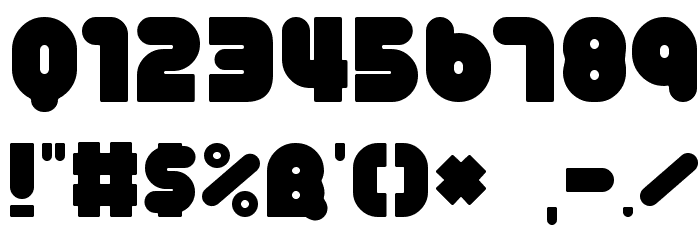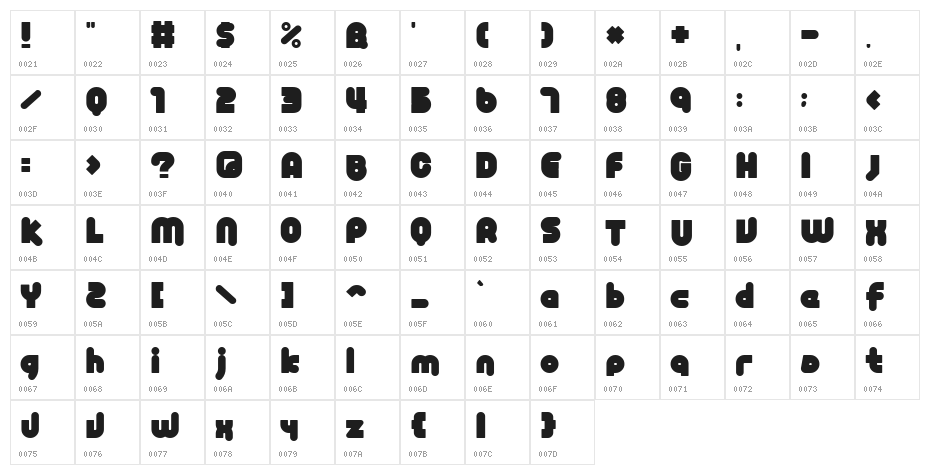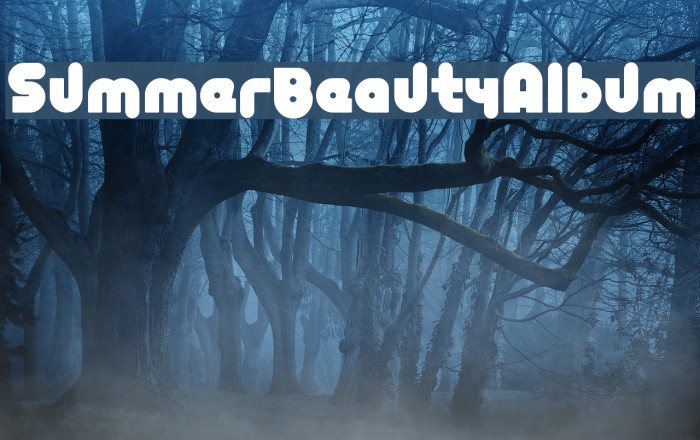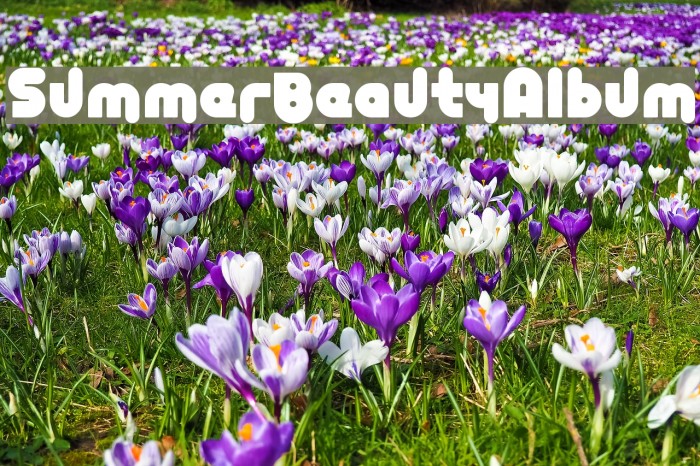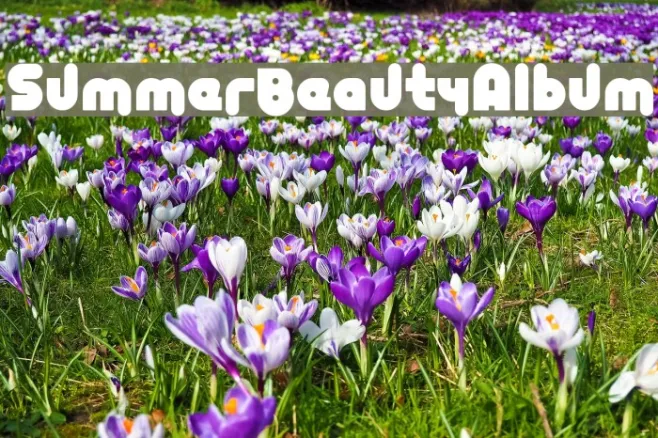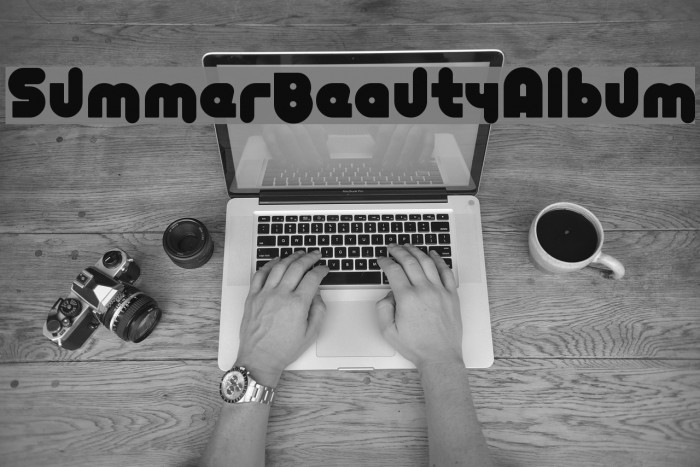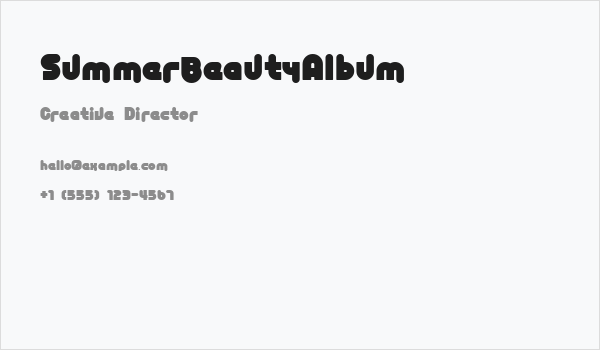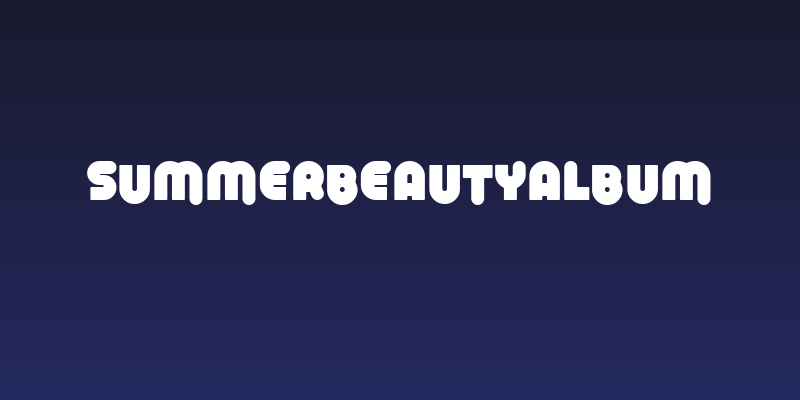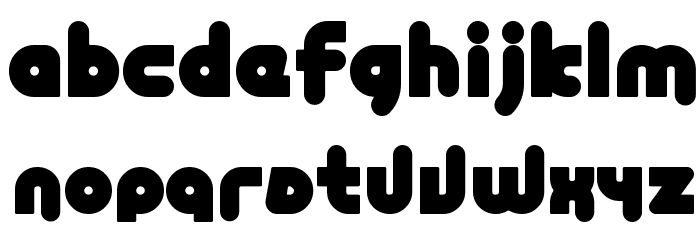
SummerBeautyAlbum Font
SummerBeautyAlbum Description
This font features a bold and playful design with rounded edges and a chunky appearance, making it highly suitable for eye-catching displays. The characters are uniformly thick, contributing to a strong visual impact. The uppercase and lowercase letters maintain a consistent style, with a slight variation in height and width that adds a touch of uniqueness. The numbers and special characters follow the same bold and rounded aesthetic, ensuring a cohesive look across all text elements. This font's design is reminiscent of retro styles, yet it maintains a modern appeal, making it versatile for various creative projects.
| Overall Style | Modern Retro |
| Proposed Projects | Ideal for posters, logos, children's books, and branding materials that require a fun and bold statement. |